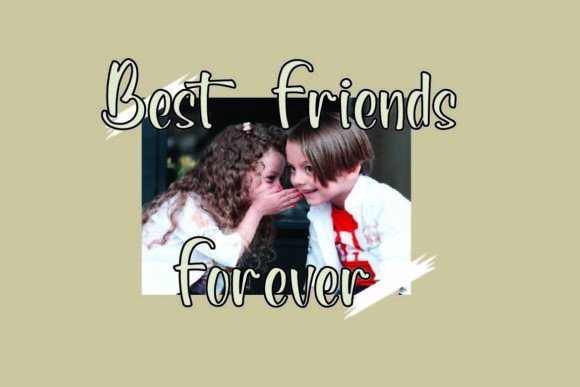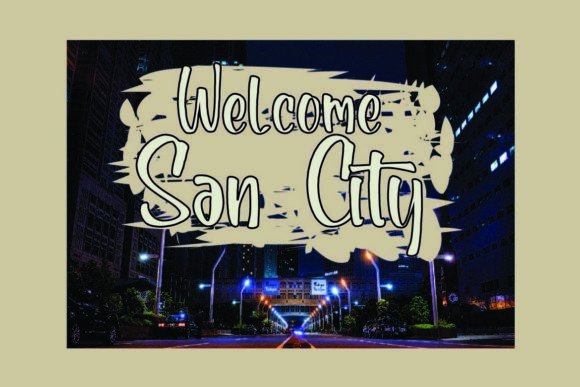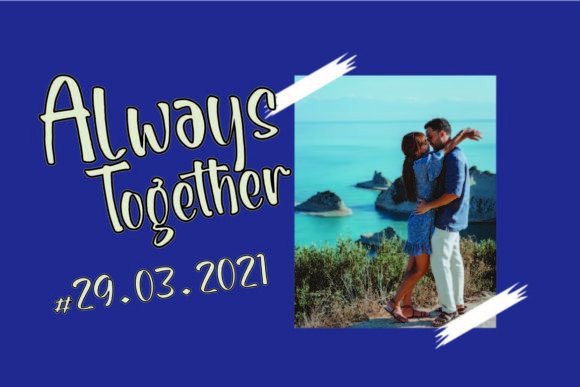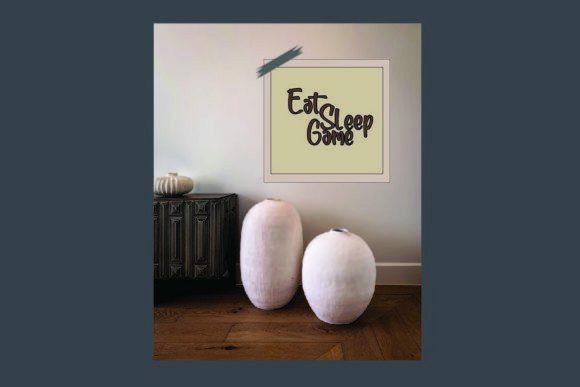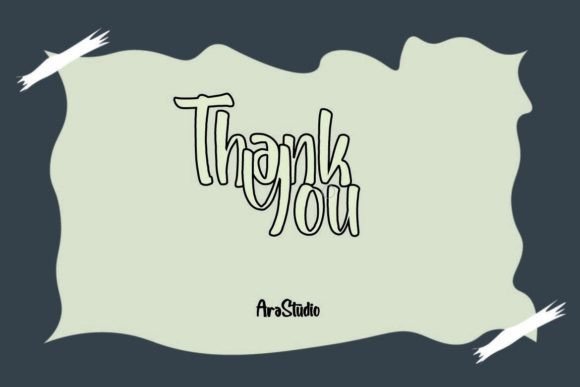
Janetty Font
About Janetty Font
“Janetty” is a delightful script font that draws inspiration from handwriting, bringing an aesthetic touch to its design. This lovely typeface exhibits versatility, making it suitable for various applications in both web and print contexts. Its adaptability makes “Janetty” a valuable asset for a diverse range of projects, including stationery, packaging, apparel, wedding stationery, prints, quotes, social media graphics, planners, greeting cards, logos, branding, and much more.
The charm of “Janetty” lies in its ability to convey a handwritten aesthetic with an added touch of visual appeal. Its versatile nature ensures seamless integration into both digital and print designs, providing a consistent and attractive look across different platforms.
In stationery and packaging, “Janetty” adds a personalized and elegant flair, making each piece stand out with a touch of individuality. For apparel designs, the font contributes to a fashionable and stylish presentation. Wedding stationery benefits from the romantic and aesthetic qualities of “Janetty,” creating a cohesive and visually pleasing atmosphere.
In the digital realm, “Janetty” enhances social media graphics with its graceful script, bringing a touch of charm to quotes, posts, and other visual content. The font’s versatility extends to planners, greeting cards, and various print materials, ensuring a cohesive and aesthetically pleasing design.
For branding and logos, “Janetty” adds a unique and memorable signature to your visual identity, contributing to a brand image that is both charming and professional.
In essence, “Janetty” is more than just a font; it’s a versatile tool that enhances the visual appeal of your projects. Its lovely script, inspired by handwriting, adds a touch of aesthetics that suits a wide array of applications. Whether you’re working on print or digital designs, “Janetty” proves to be a charming and adaptable choice.